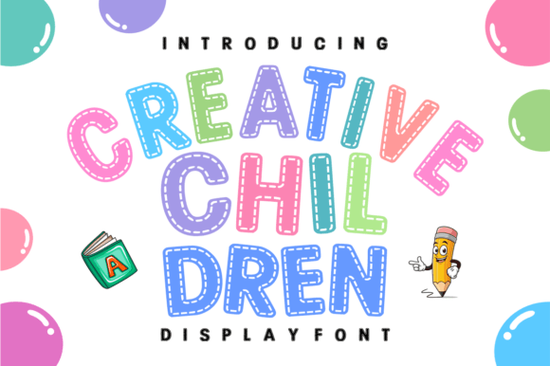
If you’re searching for a font that feels truly homemade and playful, Creative Children might be exactly what your next project needs. This charming stitched kids font blends bold, rounded letterforms with a clean dotted internal line that mimics hand-sewn fabric – perfect for nursery decor, classroom signs, and custom apparel. It’s highly legible, weeding-friendly for cutting machines, and brings a soft, handmade touch that families and kids naturally love.
How does the stitched effect work in real design projects?
The magic of Creative Children lies in that inner dotted line. Instead of being a solid fill, each letter has a subtle “stitched” path running through the center. This gives the font a tactile, textile look without needing extra layers or manual editing. You can use it directly in Cricut Design Space, Silhouette Studio, or any standard graphics software – just type and let the stitched effect do the work. The bold, rounded shape also makes it easy to read from a distance, so it works great for banners and bulletin boards.
What makes this font good for cutting machines?
If you run a print-on-demand shop or craft business, you know that weeding (removing excess material) can be a headache. Creative Children is designed with chunky strokes and clear inner lines that weed incredibly cleanly. The letterforms are thick enough to hold their shape even when cut in vinyl or heat transfer material. And because the stitched line is part of the letter (not a separate cut), you don’t have to align multiple layers – one pass, done.
- One-pass weeding – no tiny islands to pick out.
- Bold thickness prevents tearing on delicate materials.
- Clean inner path stays readable even at small sizes.
Where can I use Creative Children effectively?
This font shines wherever you want a cozy, handcrafted feel. Think personalized kids’ t-shirts, tote bags, birthday invitations, or classroom labels. It also works beautifully for digital planners, sticker sets, and social media graphics for family-focused brands. Because the stitched detail is subtle, it doesn’t overpower the design – it just adds warmth.
If you need a contrasting style for headers or accents, try pairing it with a simpler sans serif. For example, a chunky display font like Charming Chunky can provide extra visual weight for titles, while Creative Children handles the playful body text. Or go for a worn, vintage look with Distressed Bold Sans on the same project for an edgy balance.
Will it work for both digital and print projects?
For cutting projects, remember to size the font large enough (at least 1.5 inches tall) so the stitched gap doesn’t become too narrow. This is especially important for heat transfer vinyl, where the material may shift during pressing.
How does it compare to other playful display fonts?
While there are many cute kids’ fonts out there, Creative Children stands out because of that built-in stitching. It saves you the step of adding a line effect manually. For a more rugged, hand-drawn feel, you might also like Broken Rudder Font – but that one lacks the stitched detail. Another alternative is Nordic Omen, which has a bolder, Nordic-inspired structure but no decorative inner path. Creative Children hits a sweet spot between playful and legible, with that subtle handmade detail that sets it apart.
Practical tips for using Creative Children in your next design
- Keep backgrounds simple. The stitched line stands out best on solid or lightly patterned backgrounds. Avoid busy textures that compete with the detail.
- Use letter spacing. A little extra tracking (space between letters) helps the stitched path breathe, especially in all-caps titles.
- Test on a small scrap first. If cutting with vinyl, run a quick test cut to verify the weeding gaps are wide enough for your material.
- Pair with a simple script for a handcrafted look, or with a geometric sans for a modern twist.
- Layer with a subtle shadow (offset by 2-3 mm) to give the stitched letters extra depth on apparel.